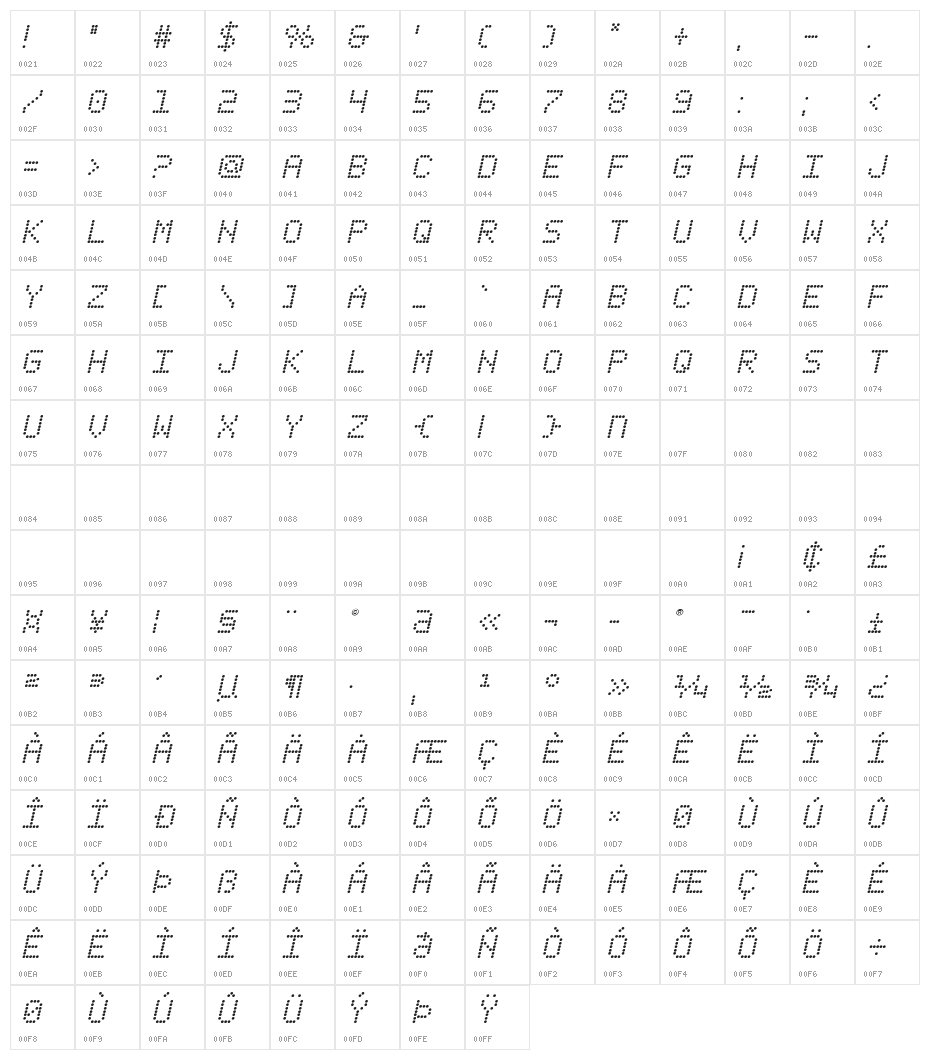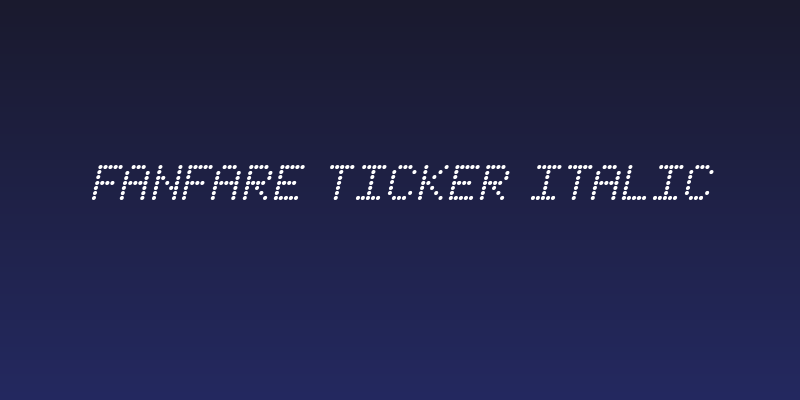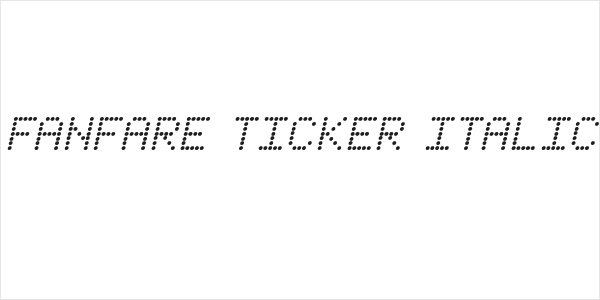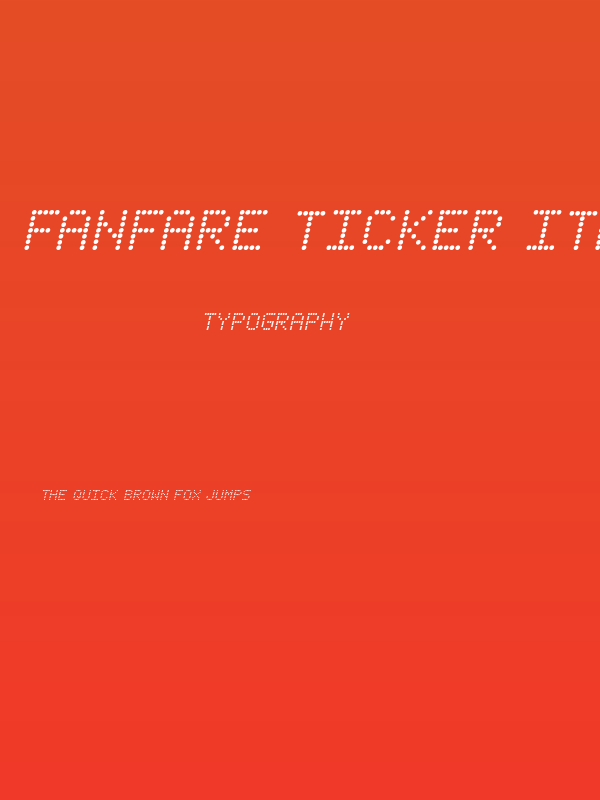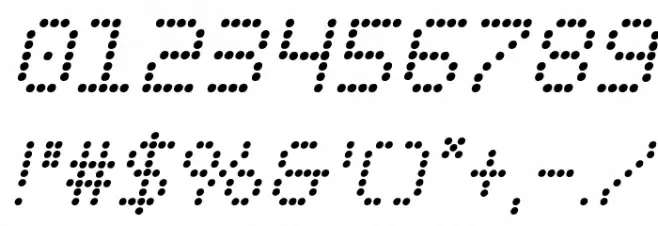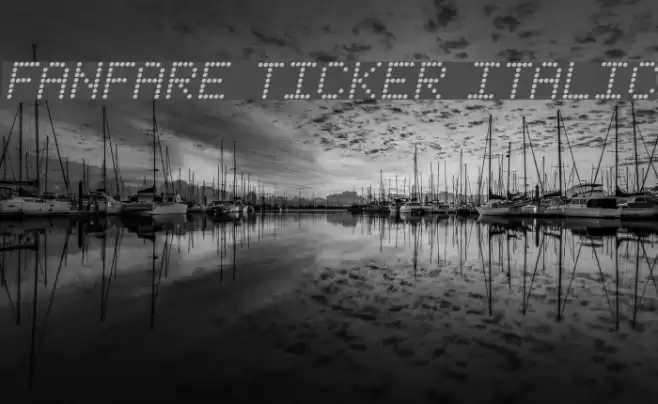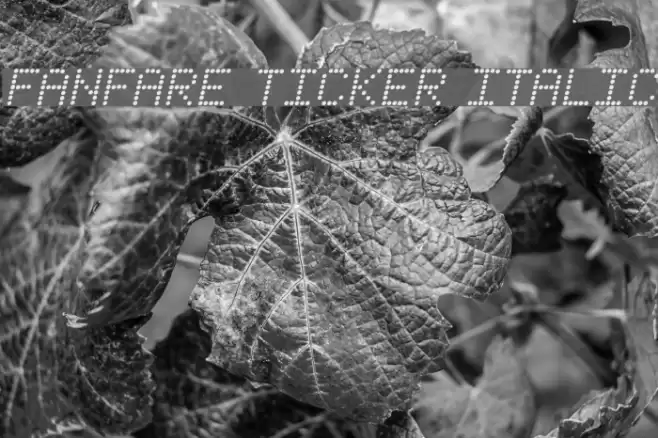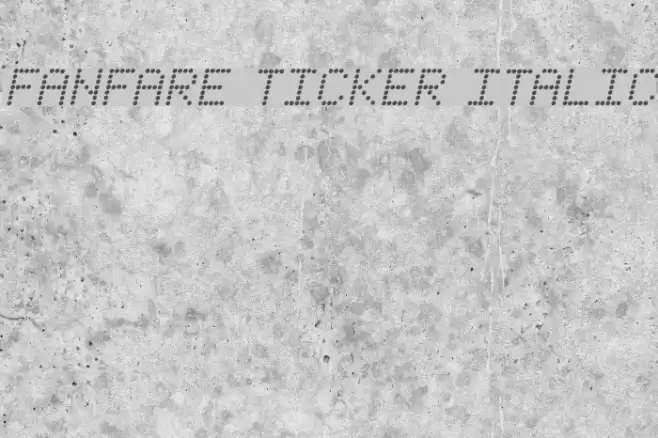
Fanfare Ticker Italic Font
Fanfare Ticker Italic Description
This font features a unique dotted design, where each character is composed of small, evenly spaced dots. The style is italicized, giving it a dynamic and modern appearance. The characters are slightly slanted to the right, enhancing the sense of movement. This font is highly legible despite its unconventional structure, making it suitable for creative and contemporary projects. The uniformity of the dots provides a cohesive look across all characters, including uppercase, lowercase, numerals, and special symbols.
| Use Case | Headlines, Logos, Digital displays |
| Proposed Projects | Ideal for digital displays, tech-themed designs, modern art projects, and innovative branding materials. |